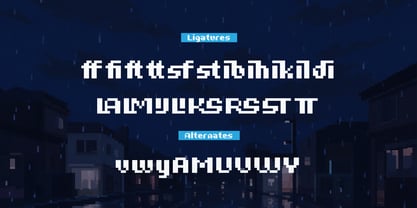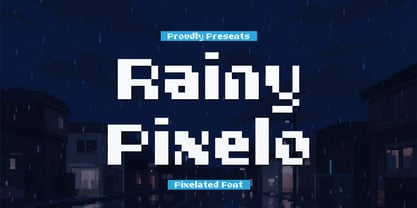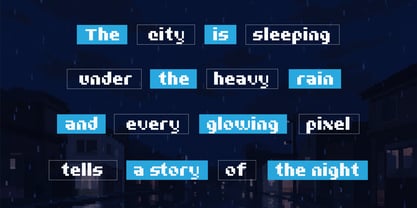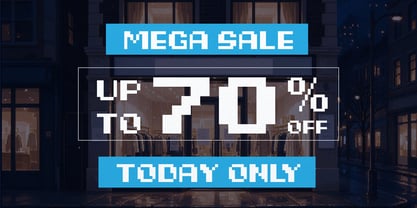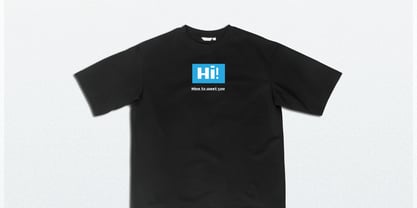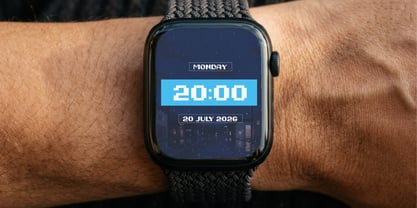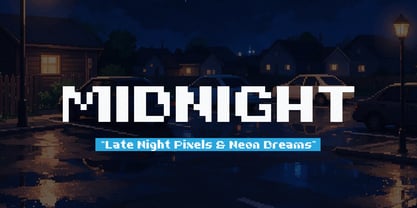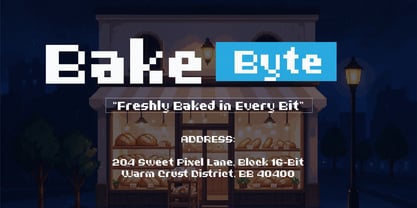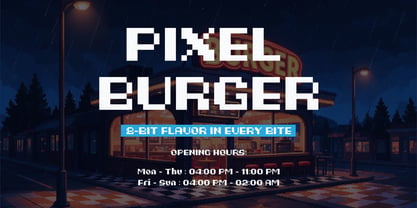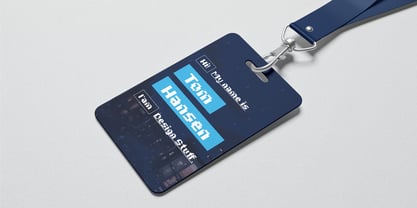
Rainy Pixelo
Rainy Pixelo | Pixelated Font, from Gracetypestudio, suitable for any projects such as: logos, branding projects, homeware designs, product packaging, mugs, quotes, posters, shopping bags, t-shirts, book covers, name card, invitation cards, greeting cards, label, photography, watermark, special events, and all your other lovely projects that need a Pixelated taste.